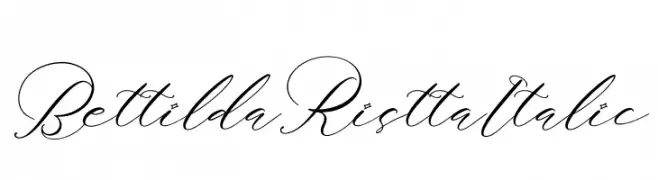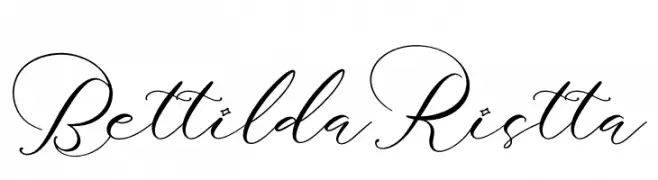
A sophisticated script font with flowing, interconnected letters and decorative swashes.
An elegant, cursive script font with flowing, interconnected letters.
A lively handwritten font with dynamic strokes and playful curves.
An elegant script font with flowing, cursive letters and graceful curves.
An elegant script font with flowing, cursive style and intricate flourishes.
A graceful script font with flowing, interconnected characters and elegant flourishes.
A bold, playful script font with high contrast and whimsical flair.
A playful, elegant script font with medium contrast and whimsical flourishes.
A delicate, flowing script font with an elegant, handwritten style.
A sophisticated, elegant cursive script with high contrast and flowing lines.